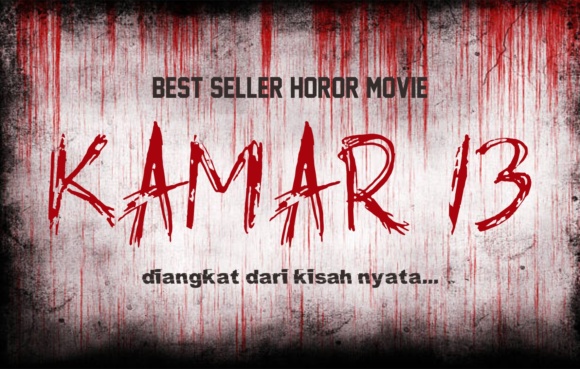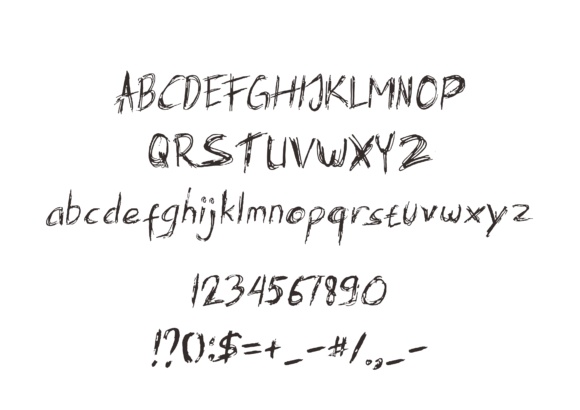
Ceu Gense Font
About Ceu Gense Font
Ceu Gense is a fonts that was made to be shaped like stroke pen jam, but it turned out shaped like a terrible handwriting.